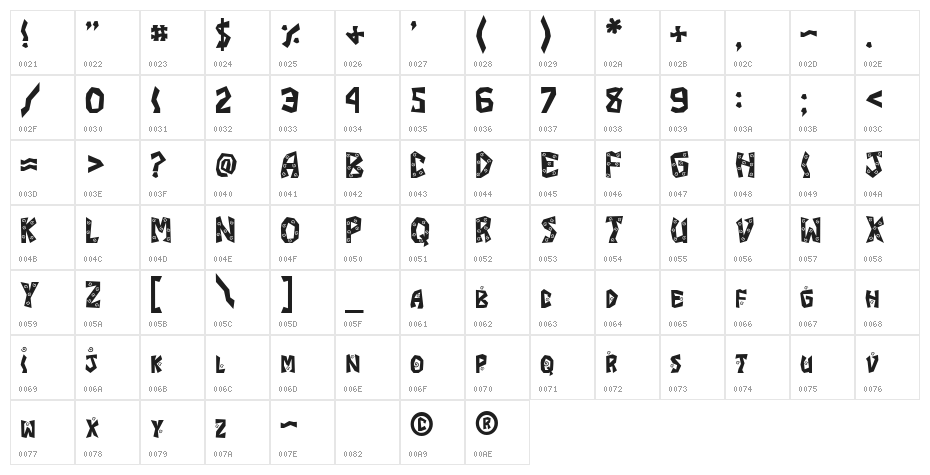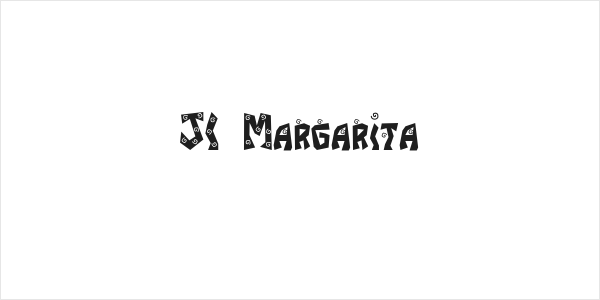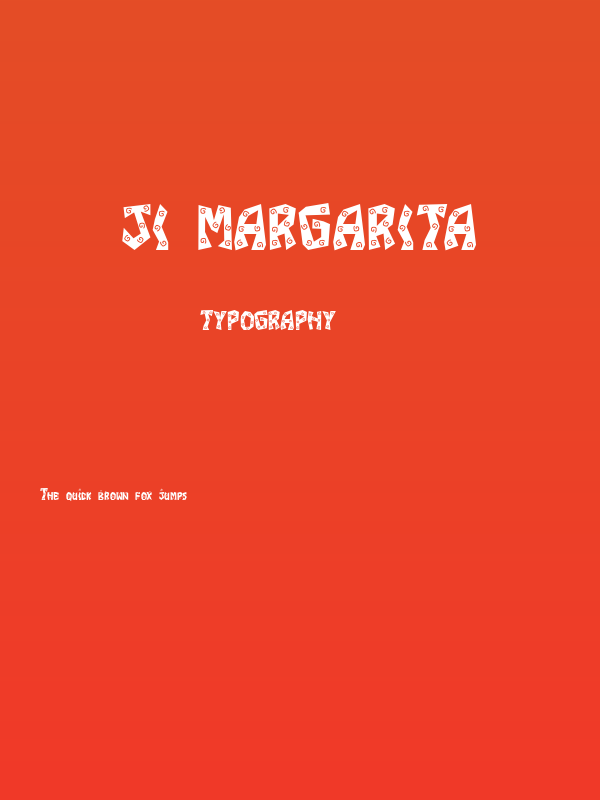
JI Margarita Font
JI Margarita Description
This font features a playful and whimsical design, characterized by its bold, angular shapes and distinctive spiral patterns within each character. The letters have a hand-drawn, cartoonish quality, making them stand out with a unique personality. The uppercase and lowercase letters maintain a consistent style, with exaggerated curves and sharp edges that create a dynamic visual effect. The numbers and special characters follow the same design principles, ensuring uniformity across the font set. This font's quirky and energetic appearance makes it ideal for creative and informal projects.
| Overall Style | Whimsical |
| Proposed Projects | Ideal for children's book covers, playful posters, party invitations, and creative branding. |